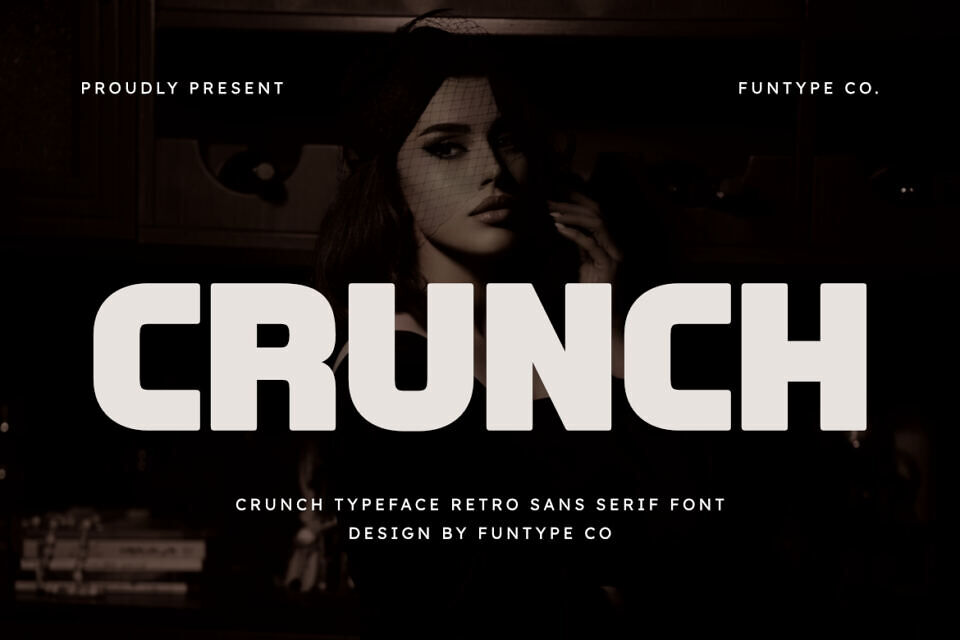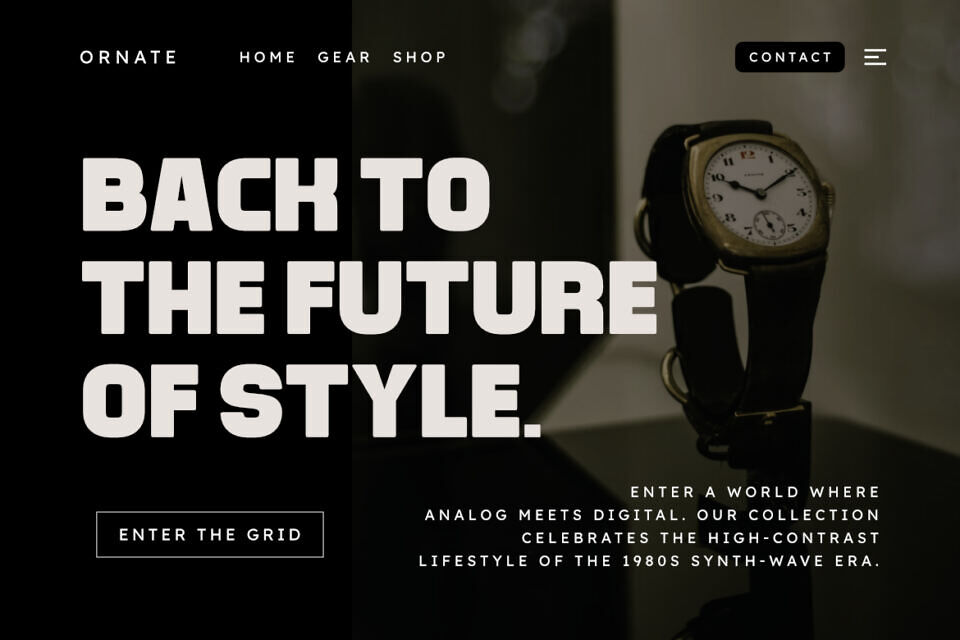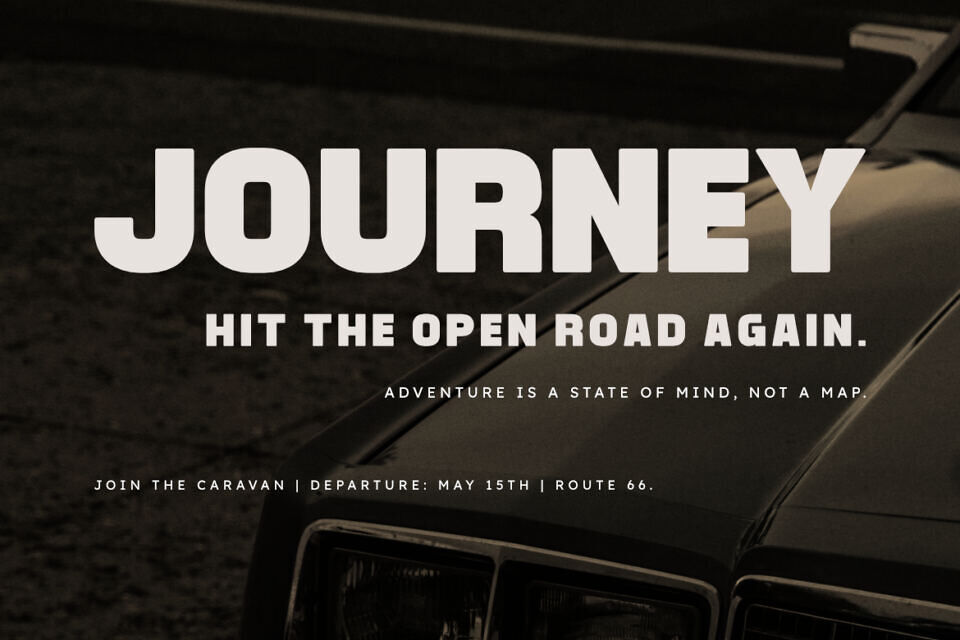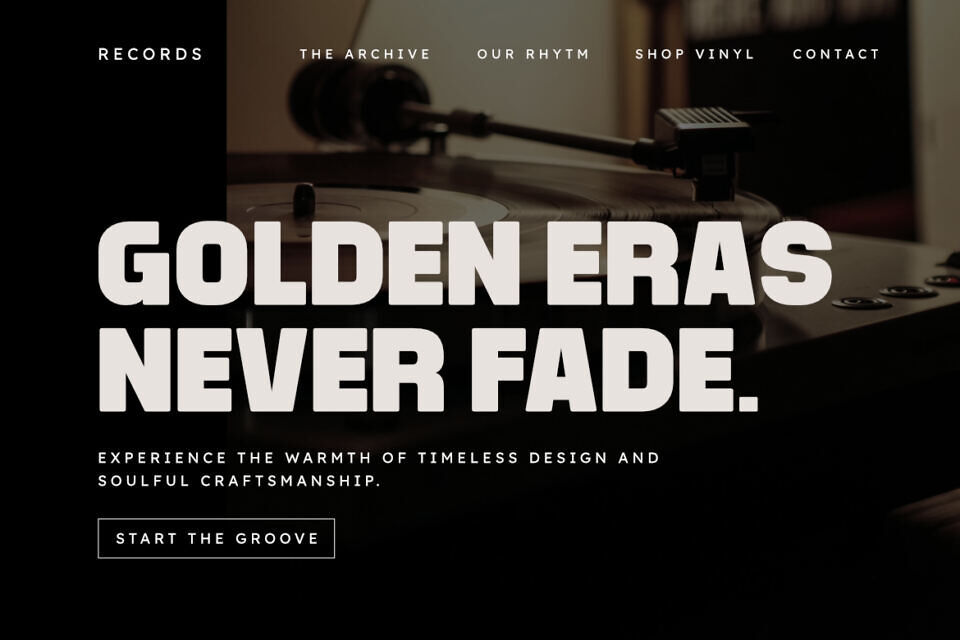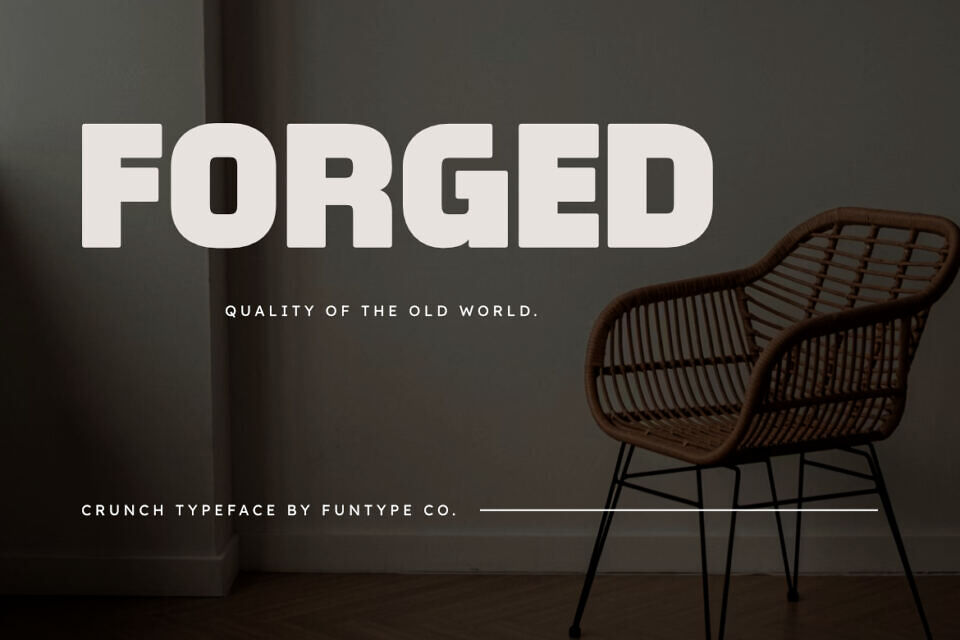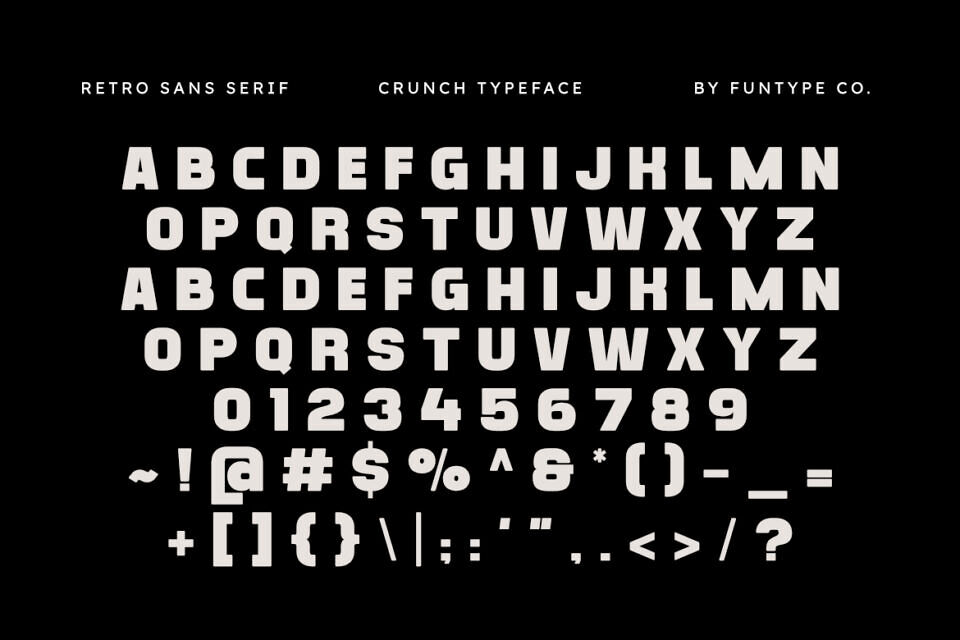
Crunch Font
Crunch is a sophisticated and playful retro sans serif font, thoughtfully designed to capture the essence of vintage charm and contemporary storytelling. With its thick, rounded structure and bold geometric lines, Crunch offers a professional aesthetic that brings a touch of nostalgic authority to any creative project.
Whether you are crafting a striking 70s-inspired logo, a sleek lifestyle brand identity, or bold editorial layouts, Crunch provides a seamless blend of retro flair and modern power.